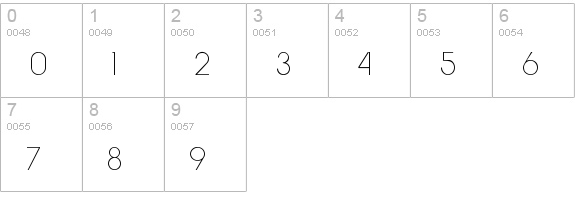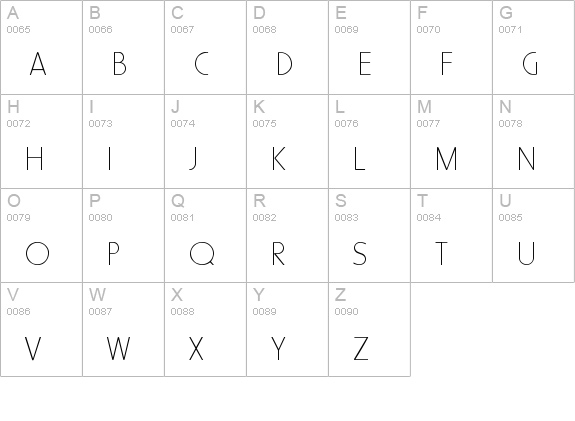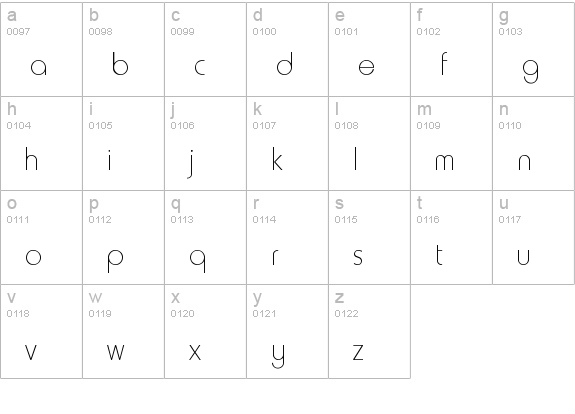
HowardThin Regular is the standard, neutral variant in the HowardThin typeface family \xE2\x80\x94 well suited to general body text, paragraphs, and standard typographic work.
Introducing HowardThin Regular font, a sleek and modern typeface that exudes sophistication and elegance. With its clean lines and sharp edges, this font is perfect for creating a professional and polished look for your design projects. Whether you're working on branding, advertising, or editorial design, HowardThin Regular font is sure to make a statement. What's even better is that HowardThin Regular font is available for free download at FontsMarket.com. This means you can easily access this versatile font and incorporate it into your creative work without any hassle. Don't miss out on the opportunity to elevate your designs with the timeless appeal of HowardThin Regular font. Download it today and see the difference it can make in your projects!